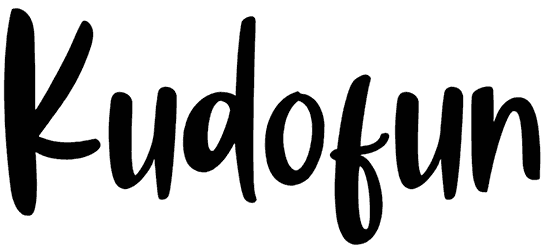
Kudofun Font
With brush strokes, skewed and playful character, and a variety of amazing features, this striking typeface gives you the edge you deserve for your design.
The simple yet ideal design of the letters makes this script font stand out from the crowd. Kudofun font highlights a certain elegance that makes it a great choice for many different types of print and digital designs. This cartoon font has a bit unreadable design with two different types.